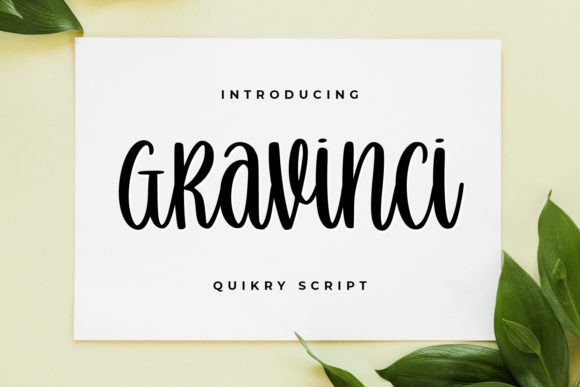
Introducing Gravinci Font: The Elegant and Dainty Handwritten Font
In the world of typography, fonts play a crucial role in conveying the tone and personality of a brand or design. Among the numerous fonts available, Gravinci Font stands out for its elegant and dainty handwritten style, featuring sweet and delicate swashes. This original look makes it an ideal choice for a wide range of crafty ideas, from letterheads and titles to stationery.
Key Features of Gravinci Font
- Elegant and Dainty Handwritten Style: Gravinci Font boasts a sophisticated and refined handwritten look that adds a touch of luxury to any design.
- Sweet and Delicate Swashes: The font features beautiful swashes that add a decorative element to your designs, making them perfect for titles, headings, and other creative projects.
- Versatile and Adaptable: Gravinci Font is suitable for various design applications, including letterheads, titles, stationery, and more.
- Unique and Original Design: The font’s distinctive style sets it apart from other fonts, ensuring your designs stand out from the crowd.
Design Applications for Gravinci Font
Gravinci Font’s versatility makes it an excellent choice for various design projects. Here are some ideas to get you started:
- Letterheads and Stationery: Add a touch of elegance to your business correspondence with Gravinci Font.
- Titles and Headings: Use the font’s decorative swashes to create eye-catching titles and headings for your blog posts, articles, or social media content.
- Wedding and Event Invitations: Gravinci Font’s sweet and delicate style makes it perfect for wedding invitations, event announcements, and other celebratory designs.
- Branding and Packaging: Incorporate the font into your brand identity to convey a sense of sophistication and refinement.
Typography Tips for Using Gravinci Font
To make the most of Gravinci Font, consider the following typography tips:
- Pair with Neutral Fonts: Combine Gravinci Font with neutral fonts to create a balanced and harmonious design.
- Adjust Font Sizes: Experiment with different font sizes to create visual hierarchy and emphasize important information.
- Use Swashes Wisely: Balance swashes with plain text to avoid overwhelming the reader.
Font Pairing Suggestions for Gravinci Font
To create a cohesive design, consider pairing Gravinci Font with the following fonts:
- Open Sans: A clean and modern sans-serif font that complements Gravinci Font’s elegance.
- Lato: A sleek and sophisticated sans-serif font that pairs well with Gravinci Font’s decorative swashes.
- Merriweather: A classic serif font that adds a touch of sophistication when paired with Gravinci Font.
Gravinci Font is an elegant and dainty handwritten font that offers a unique and original look for your designs. With its sweet and delicate swashes, this font is perfect for a wide range of crafty ideas, from letterheads and titles to stationery. By following the typography tips and font pairing suggestions outlined in this article, you’ll be able to make the most of Gravinci Font and create stunning designs that showcase your creativity.